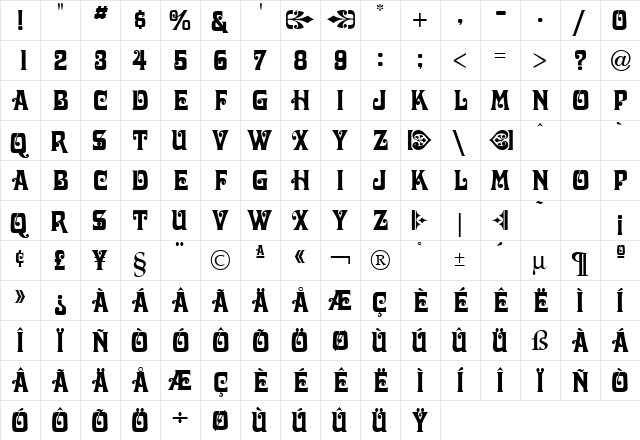
VoluteCapsSSK Regular
Design Context for VoluteCapsSSK Typeface
VoluteCapsSSK is a composed and adaptable typeface that performs quietly and consistently across a wide range of design contexts.